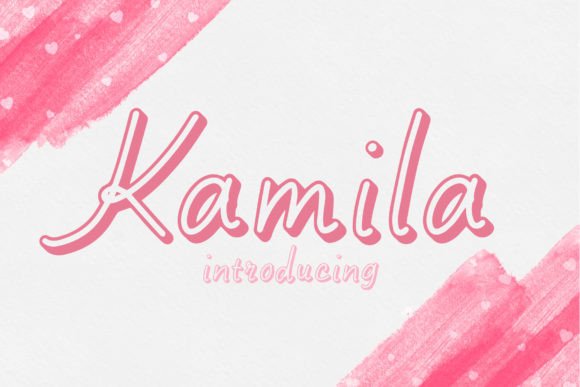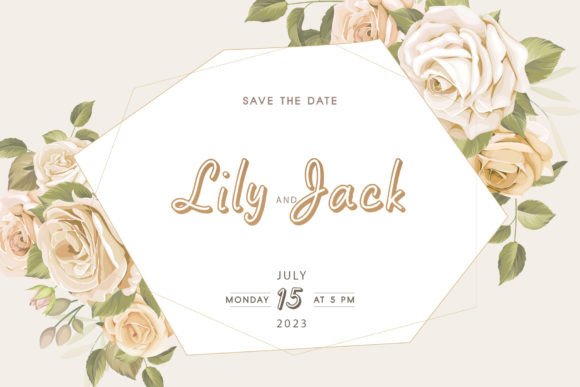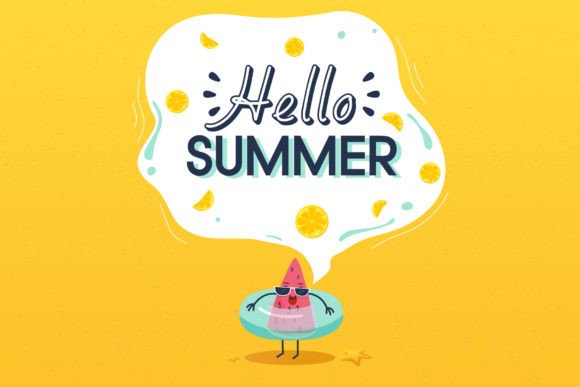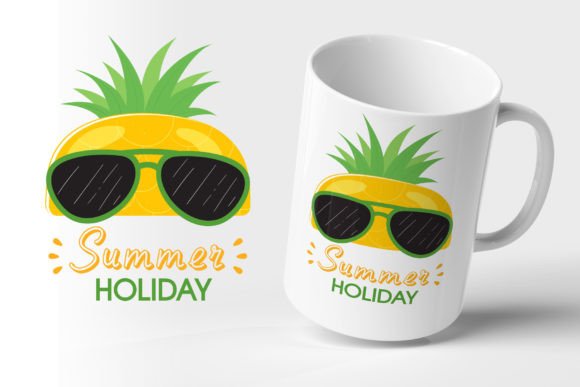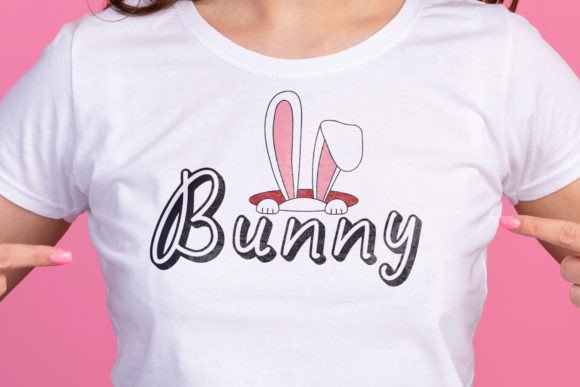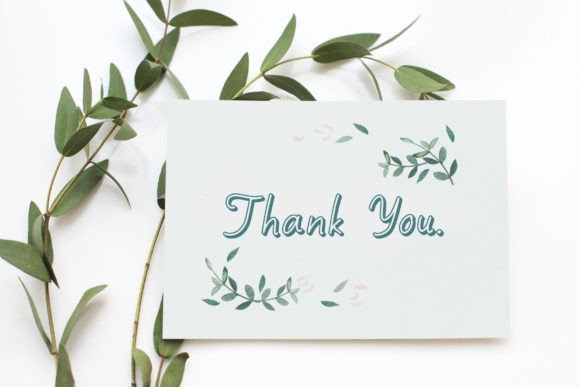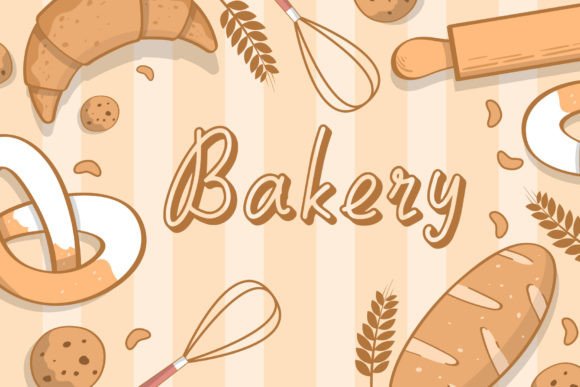
Kamila Font
Add Fun and Warmth with Kamila Font
Kamila Font is a fun and friendly handwritten typeface that brings joy and charm to your creative projects. It works especially well for Mother’s Day cards, weddings, brand names, wall hangings, romantic movie titles, Valentines, and Christmas greetings. Moreover, Kamila Font is ideal for children-themed designs, especially when paired with bright colors. This font’s playful and welcoming style adds warmth and personality to any project.
Because of its lively, easygoing character, Kamila Font helps your designs stand out and feel inviting.
Versatile Uses for Kamila Font
Kamila Font suits a wide range of projects, including:
• Mother’s Day cards and special occasion greetings
• Wedding invitations and romantic designs
• Brand names and logos with a friendly vibe
• Wall hangings and home decor artwork
• Children’s books, toys, and colorful designs
• Valentines and Christmas-themed projects
Thanks to its fun and friendly handwritten style, KamilaFont adds cheer and approachability to all your ideas.
Its balanced kerning and clear spacing make sure your text stays readable and attractive across various sizes and formats.
Why Designers Choose Kamila Font
Designers love KamilaFont for its playful yet approachable style. It adds personality and charm without overpowering the design. Whether you are a professional or a hobbyist, KamilaFont helps you create joyful and memorable typography that grabs attention.
Use KamilaFont to bring fun, friendliness, and bright energy to your next creative project.